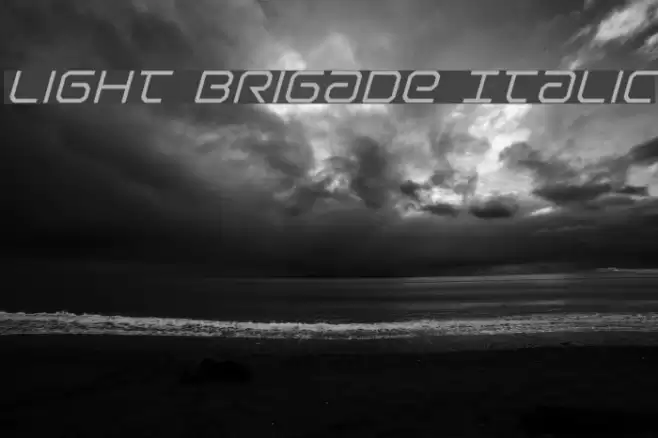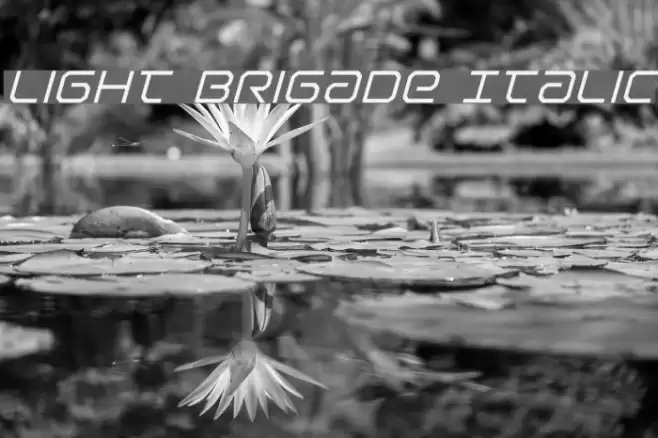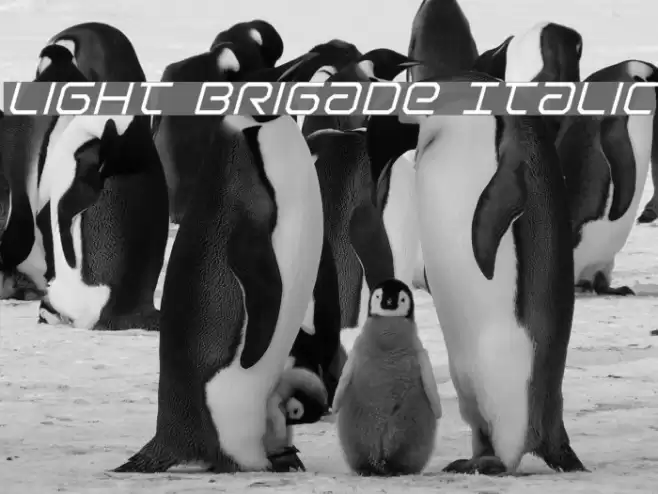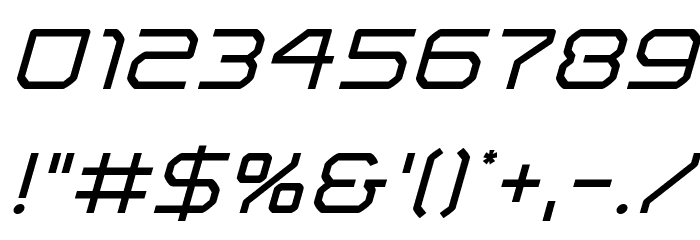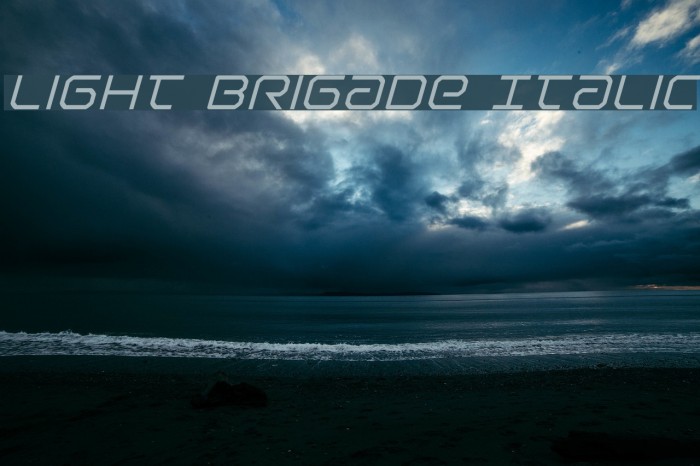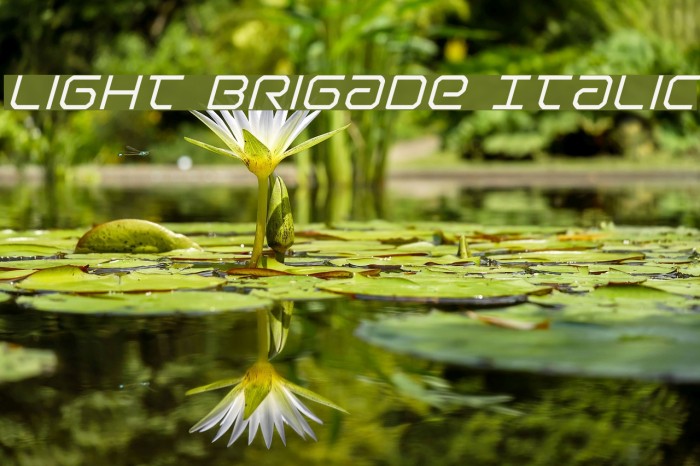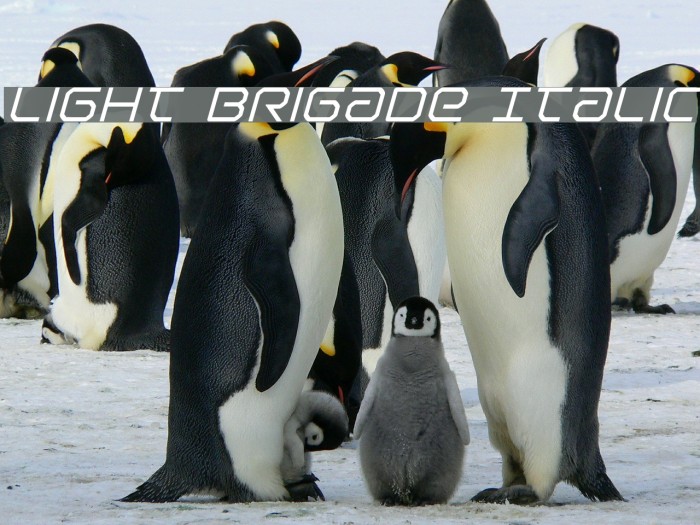
Light Brigade Italic Font
Light Brigade Italic Description
This font features a sleek, modern design with a distinct italic slant, giving it a dynamic and forward-moving appearance. The characters are geometric and angular, with consistent line thickness that provides a uniform look. The uppercase and lowercase letters maintain a cohesive style, with slightly rounded edges that soften the overall sharpness. The numerals are clear and legible, matching the style of the alphabetic characters. Special characters are included, maintaining the same aesthetic, making this font versatile for various uses.
A modern, italic font with geometric, angular characters and consistent line thickness from Uncategorized fonts.
- Proposed Projects: Ideal for technology branding, modern advertising, and dynamic logo design.
- Use Case: Logos, Headlines, Branding